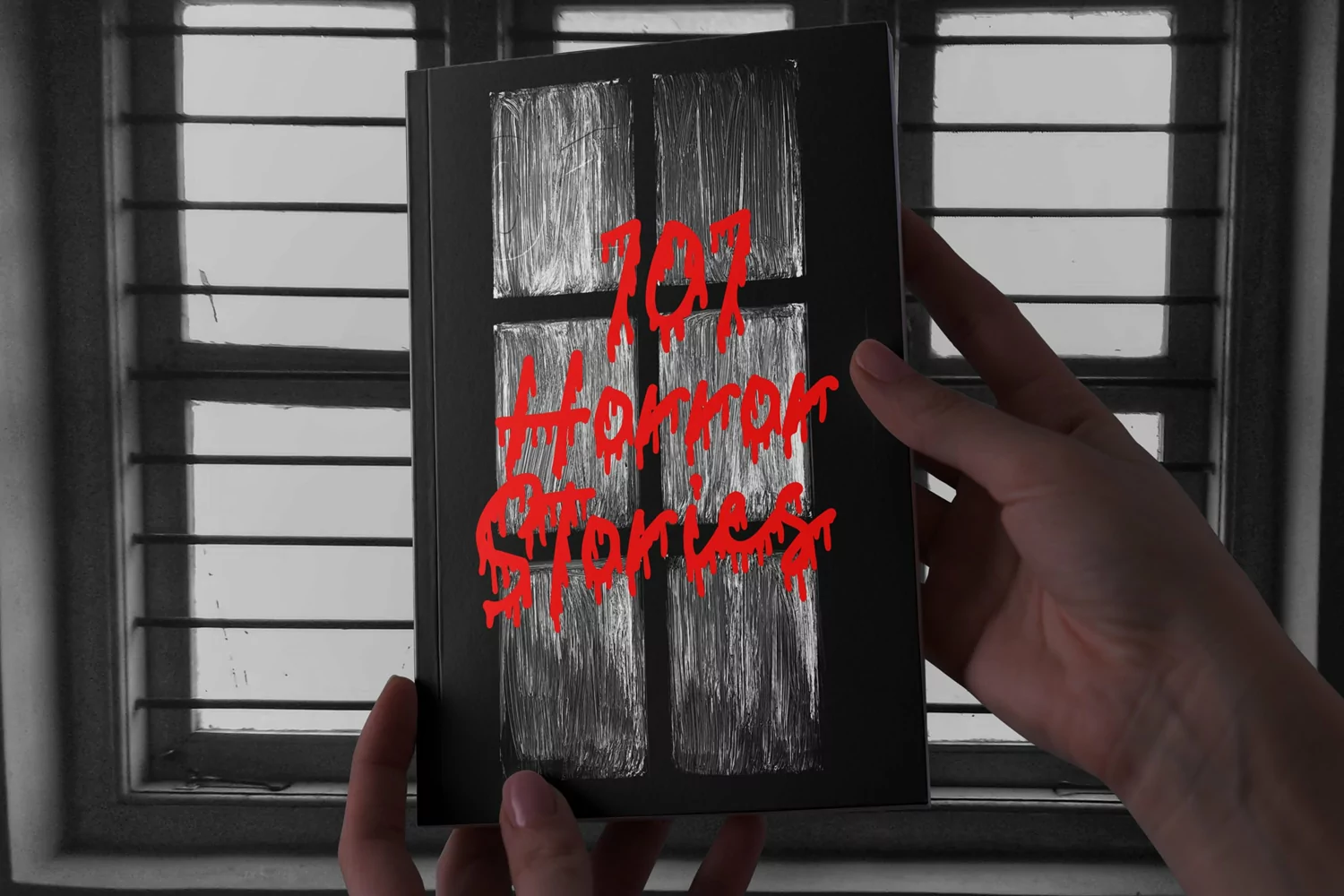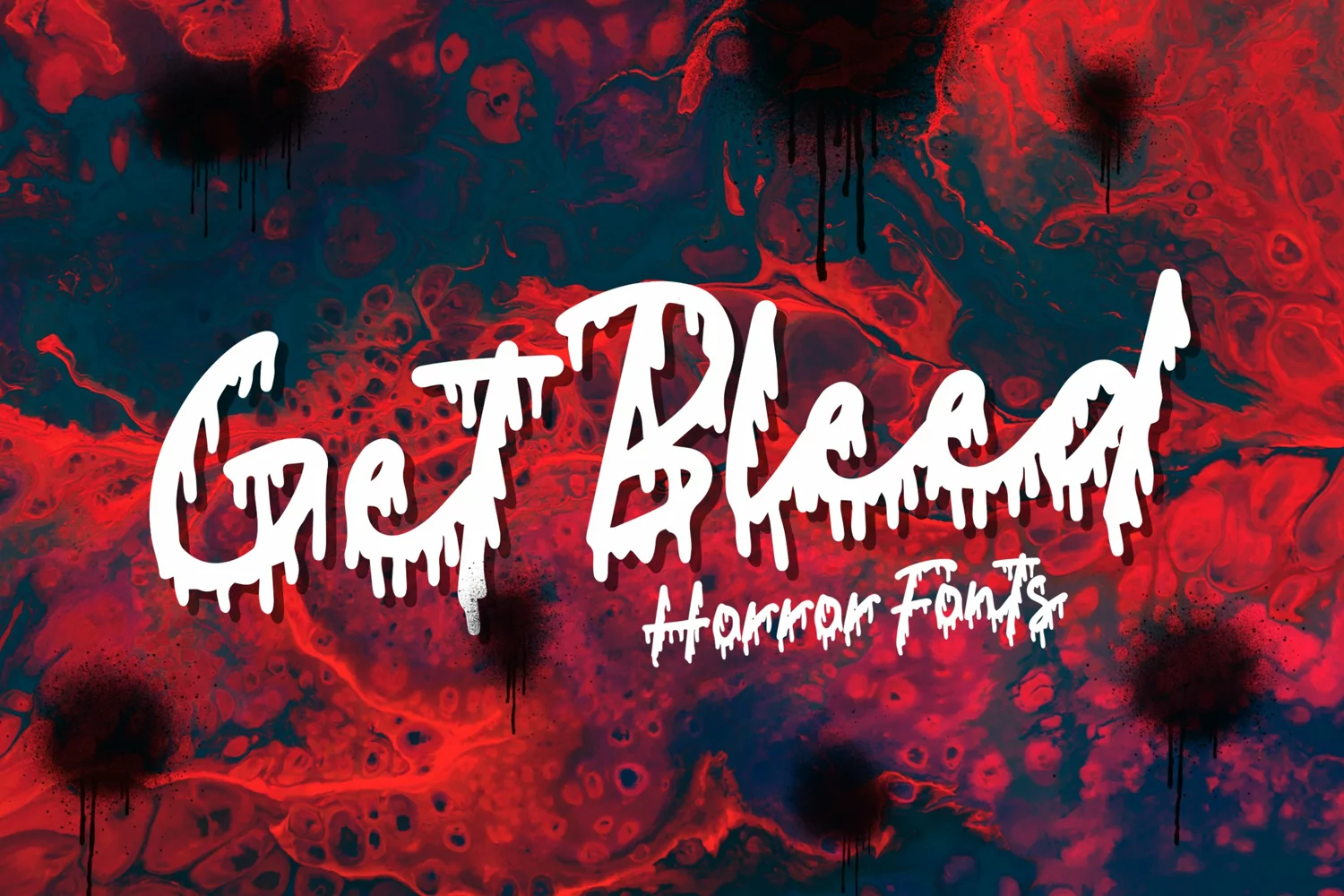
Get Bleed - Horror Fonts that contain lowercase, uppercase, symbol, and also support multi language. There’s a lot ligatures in this font. This Font also comes with ligatures, alternates and many more. this font suitable for fashion, branding, catalog and other design what you want.
Get Bleed